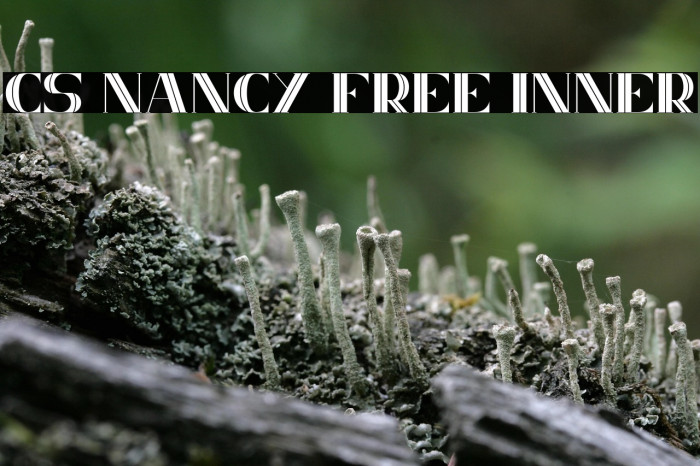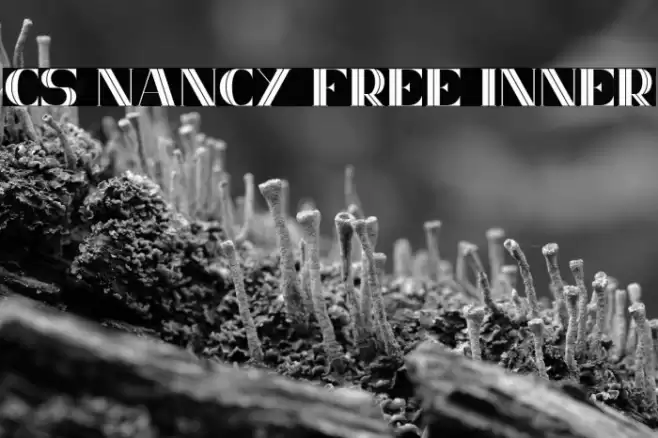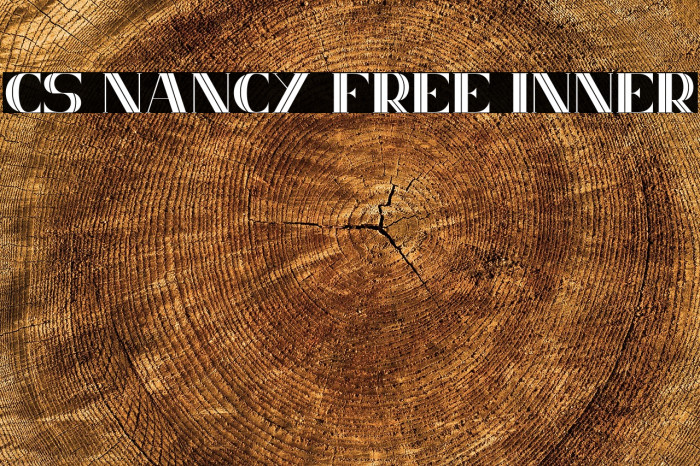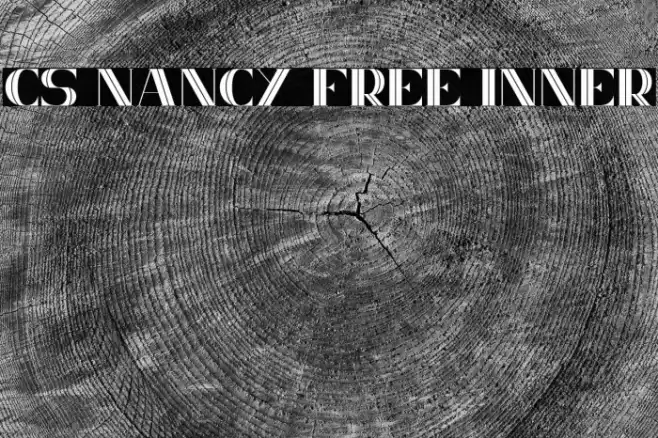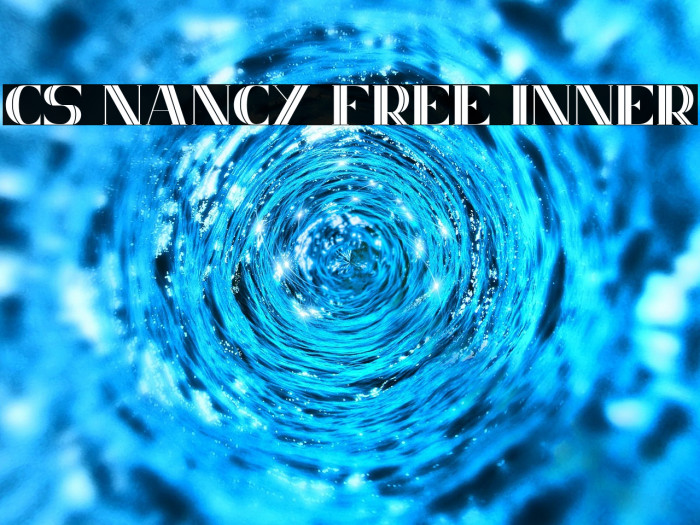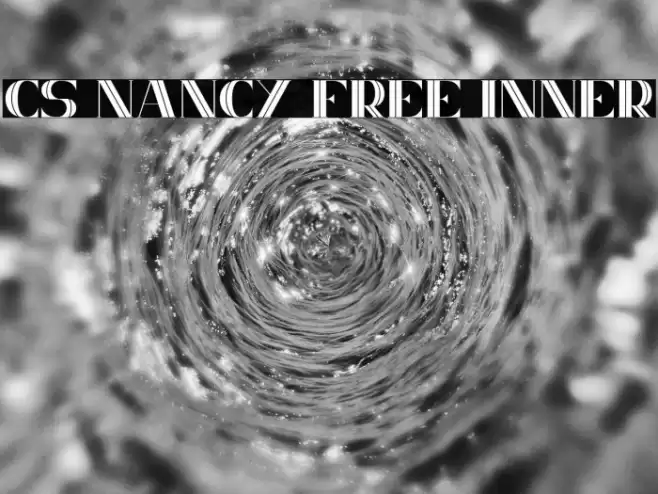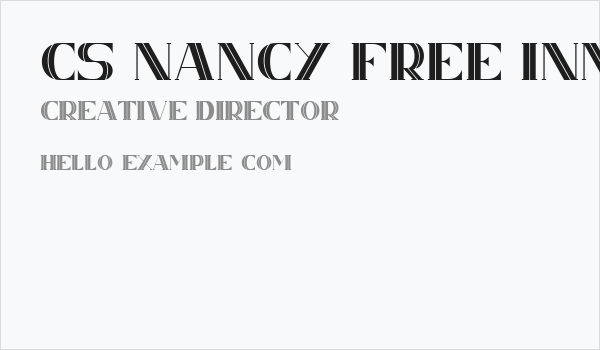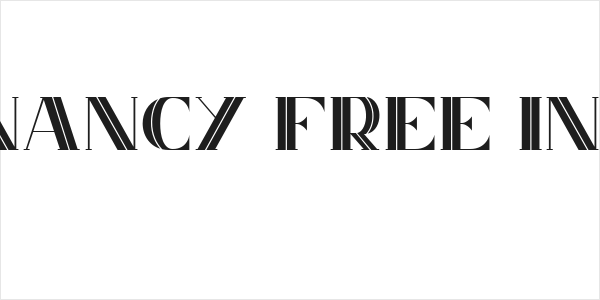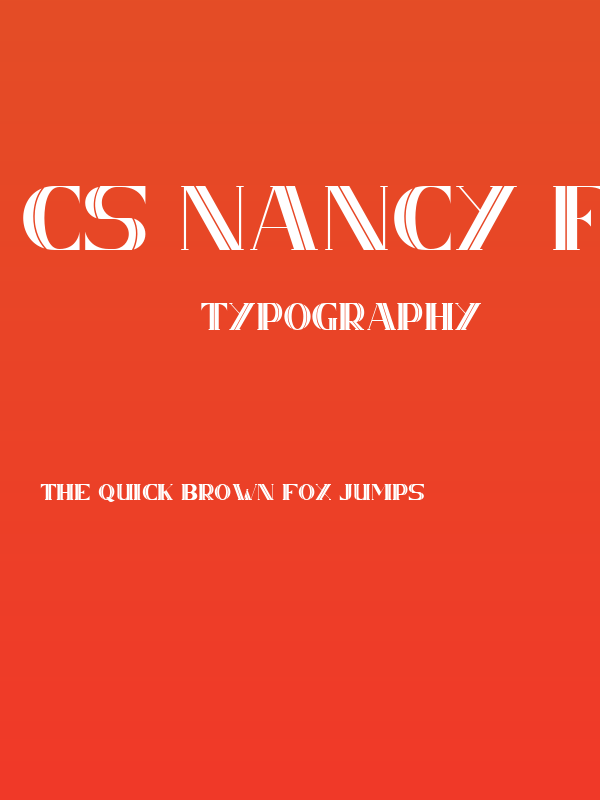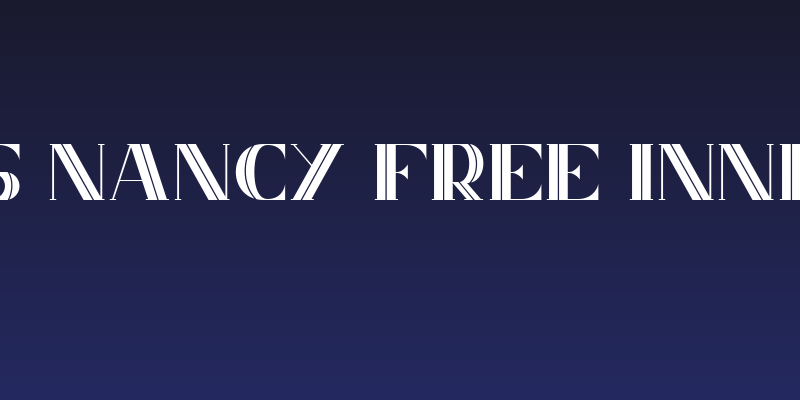
CS Nancy Free Inner Font
CS Nancy Free Inner Description
This font features a bold and striking design with a modern twist. Each character is crafted with a unique combination of thick and thin strokes, creating a high contrast that draws attention. The letters have a geometric feel, with sharp angles and clean lines that give it a contemporary look. The uppercase letters are particularly distinctive, with their elongated forms and dramatic serifs that add a touch of elegance. This font is perfect for making a statement in any design project, whether it's for headlines, posters, or branding materials.
| Proposed Projects | Ideal for use in branding, headlines, posters, and modern design projects. |